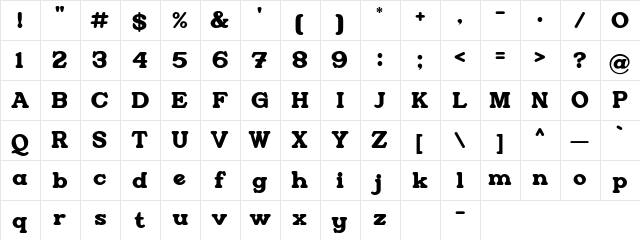
Restrick Regular
| Designer | ZetDesign (Ahmad Zulfikar Ali) |
Design Context for Restrick Typeface
Restrick offers clean, dependable letterforms without strong stylistic allegiance, making it a practical choice for designers who need flexibility.